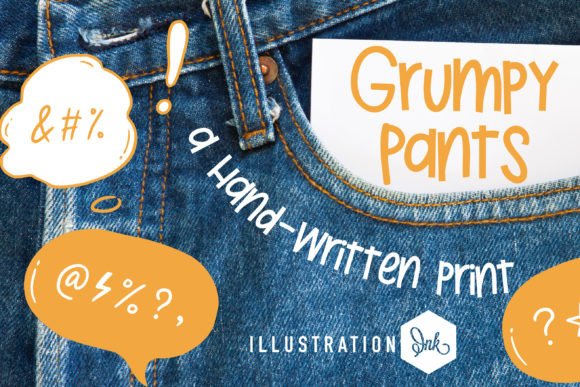
Are you tired of using the same old boring fonts? Introducing our latest font creation - Grumpy Pants Font, the perfect choice for those looking to add a playful touch to their designs. As a whimsical script font designed by Illustration Ink, each letter is crafted with charming curves and unexpected details, giving it a unique and dreamy look that will capture the attention of anyone who sees it.
Not only is Grumpy Pants Font fun and imaginative, it's also incredibly versatile, making it the best choice for a fun flyer or any design project that requires a touch of playfulness. With its modern design, this font will give your designs a fresh and trendy look that will set you apart from the crowd.
But that's not all. Grumpy Pants Font is also easy to use and customize, so you can create stunning designs in no time. Whether you're a graphic designer, marketer, or entrepreneur, this font is a must-have in your collection.